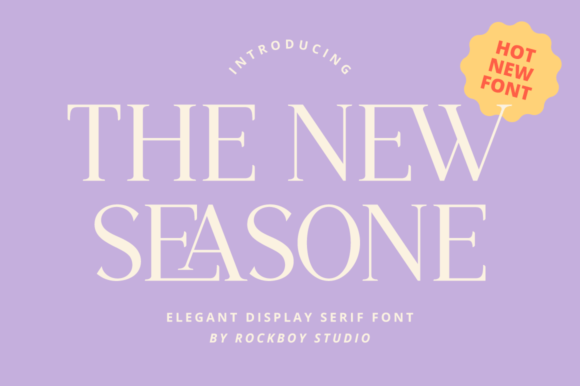
Introducing the New Seasone Font - A Voyage Through Timeless Beauty and Modern Grace
In a world where fonts speak louder than words, let The New Seasone Font take you on an extraordinary typographic adventure. This serif masterpiece, crafted by the talented RockboyStudio, is not just a font; it's an artistic gateway to elevate your designs to unprecedented heights.
The New Seasone Font's graceful curves and thin letterforms embody elegance in its purest form. Its calligraphic roots lend a touch of classic sophistication, while its contemporary essence keeps it fresh and relevant. Fall head over heels in love with its timeless beauty, and watch your projects transform into breathtaking masterpieces.
With The New Seasone Font as your creative compass, you'll embark on a journey of limitless possibilities. Its versatility knows no bounds, adapting seamlessly to a myriad of design endeavors. From captivating logos and alluring branding to enchanting invitations and heartfelt personal projects, this font will add a touch of understated luxury to every letter you type.
Feel the exhilaration as your designs take on a new lease of life, infused with the charm of The New Seasone Font. Its thin strokes dance across the digital canvas like delicate brushstrokes, creating an aura of sophistication that will leave a lasting impression. Indulge in the creative freedom it offers, knowing that your projects will radiate elegance and timeless appeal.
Don't settle for ordinary when you can embrace the extraordinary. The New Seasone Font is more than just a font; it's an investment in your creative endeavors, a key to unlocking the full potential of your imagination. As you embark on this typographic odyssey, you'll discover a world of beauty and refinement that will leave you breathless.
Unleash the power of The New Seasone Font today, and let your designs set sail on a journey of elegance and grace. Let your creativity soar, knowing that you have the perfect companion to guide you through the ever-changing landscape of design. The New Seasone Font awaits, ready to transform your projects into works of art that will stand the test of time.